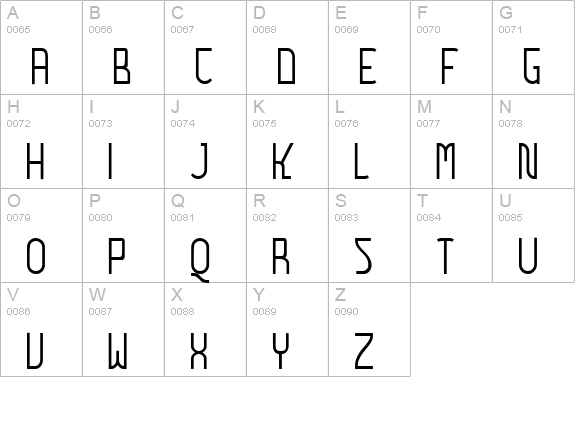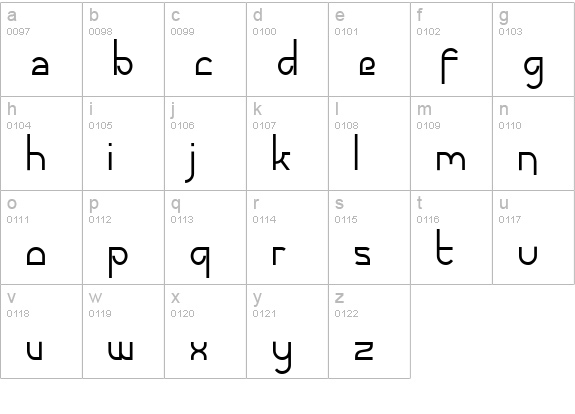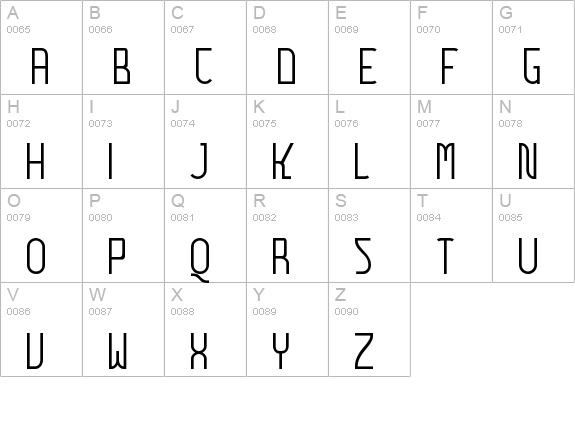
Futurex - AlternatLC is a modern and stylish font that exudes a futuristic vibe with its sleek lines and geometric shapes. This font is perfect for adding a touch of sophistication and innovation to your design projects. Its alternate letterforms offer versatility and creativity, allowing you to experiment and create unique typographic compositions. The best part? Futurex - AlternatLC is completely free to download at FontsMarket.com. Whether you're working on branding, posters, websites, or any other design project, this font will elevate your work and make a lasting impression. Embrace the future of typography with Futurex - AlternatLC and unleash your creativity with this dynamic and eye-catching font.